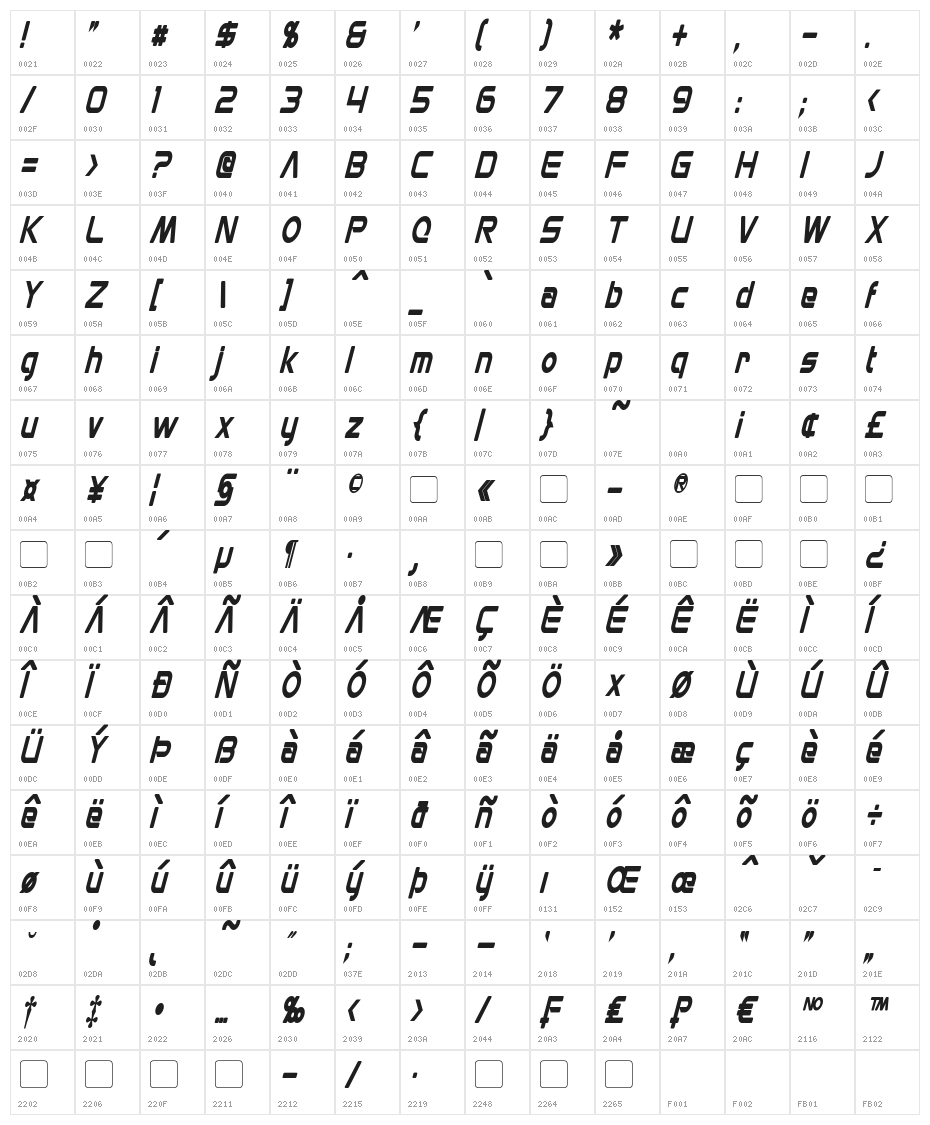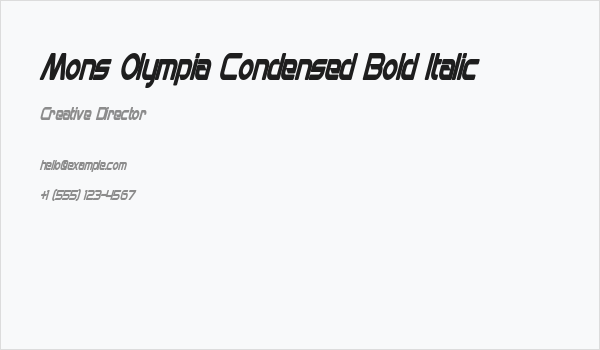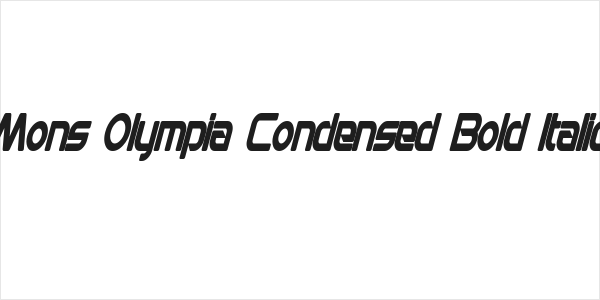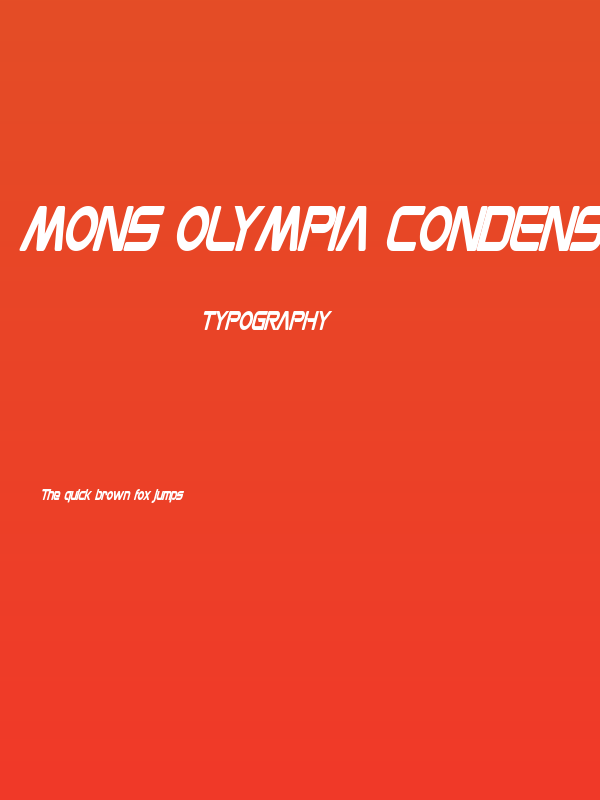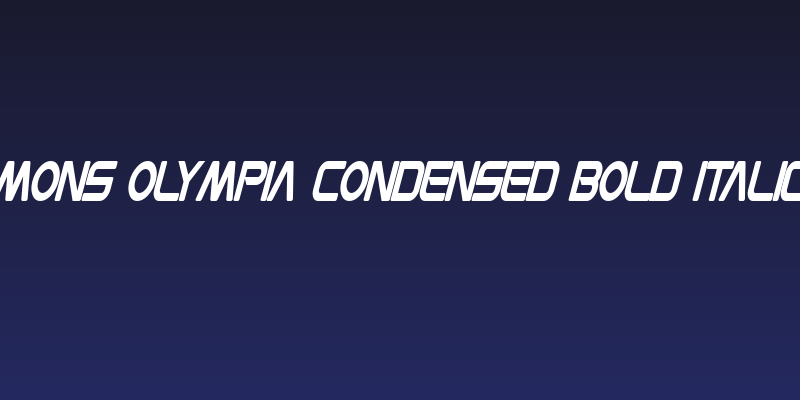
Mons Olympia Condensed Bold Italic Font
Mons Olympia Condensed Bold Italic Description
This font features a bold and italicized style with a condensed width, giving it a strong and dynamic appearance. The characters are slightly slanted, enhancing the italic effect, while maintaining a consistent thickness throughout. The design is modern and sleek, with a futuristic touch that makes it stand out. The uppercase and lowercase letters are well-balanced, and the numerals are clear and distinct. Special characters are included, providing versatility for various uses. The overall look is cohesive and impactful, suitable for projects that require a bold statement.
| Proposed Projects | Ideal for branding, advertising, posters, and any design project that requires a bold and modern typeface. |